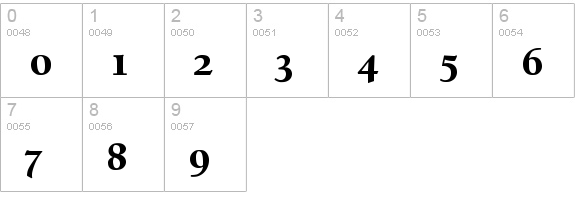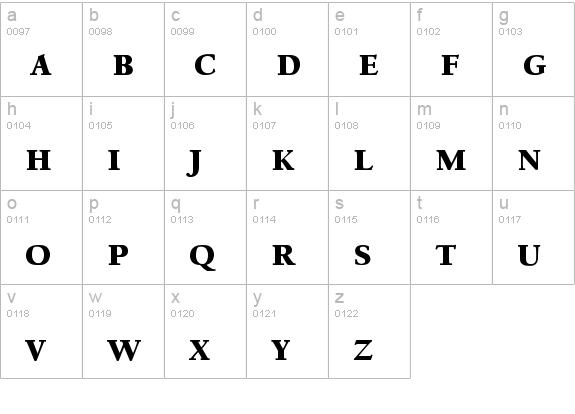
CalifornianText-BoldExpert Font Details
CalifornianText-BoldExpert font is a versatile and sophisticated typeface that exudes elegance and professionalism. With its bold and expertly crafted design, this font is perfect for making a statement in your projects. Whether you're creating eye-catching headlines, sleek logos, or stylish branding materials, CalifornianText-BoldExpert font is sure to elevate your designs to the next level. What's even better is that CalifornianText-BoldExpert font is available for free download at FontsMarket.com. This means you can easily access this premium font without any cost, making it a valuable addition to your font collection. Don't miss out on the opportunity to enhance your projects with the timeless beauty of CalifornianText-BoldExpert font - download it today and start creating stunning designs!